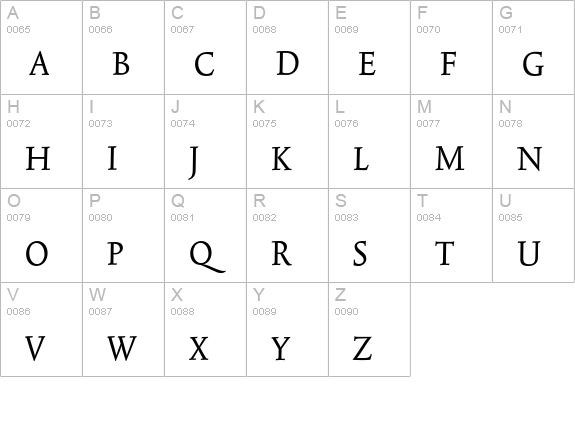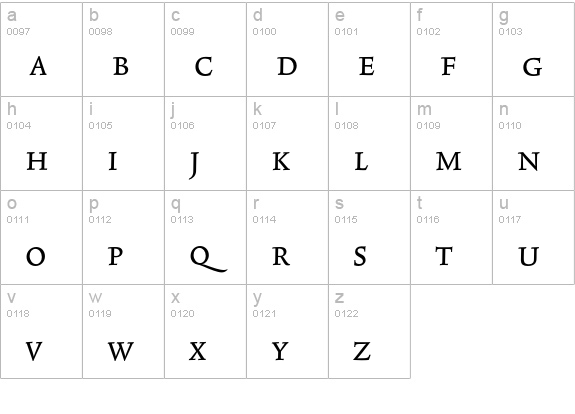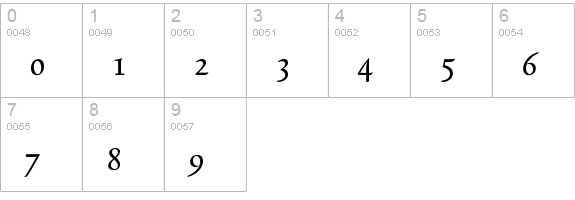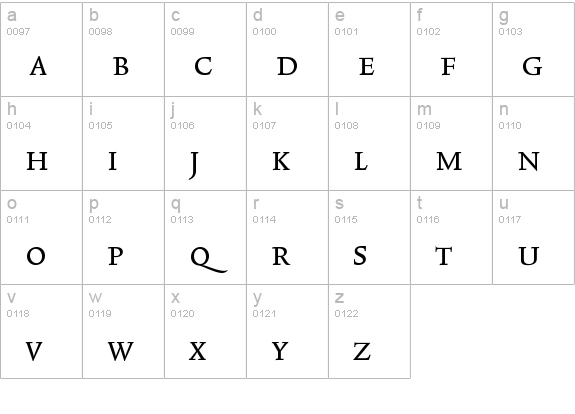
TriniteNo2-RomanCondExp font is a stunning typeface that exudes elegance and sophistication. Its sleek and slender design captures the essence of modernity, making it perfect for a wide range of design projects. This font boasts clean lines and sharp angles, giving it a contemporary and polished look. The condensed proportions add a touch of uniqueness, making it stand out from other typefaces. Whether used for headlines, logos, or body text, TriniteNo2-RomanCondExp font commands attention and leaves a lasting impression. One of the best features of TriniteNo2-RomanCondExp font is that it is free. Yes, you read that right! This incredible font is freely available to download at FontsMarket.com. This means that anyone can access and utilize this font for their creative endeavors without any cost. With TriniteNo2-RomanCondExp font, designers can unleash their creativity and bring their visions to life. Its versatility allows it to be used in a wide range of design styles and themes, making it a valuable asset for both personal and commercial projects. So, if you are looking for a font that combines modernity and elegance while being freely available, look no further than TriniteNo2-RomanCondExp font. Download it today from FontsMarket.com and elevate your designs to new heights.